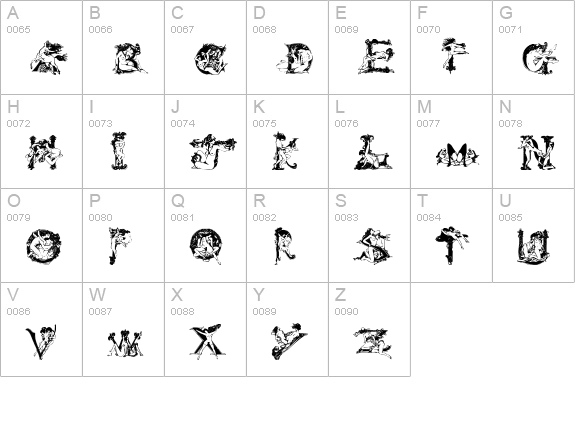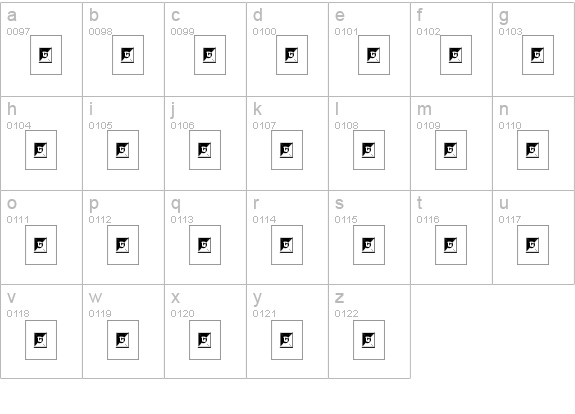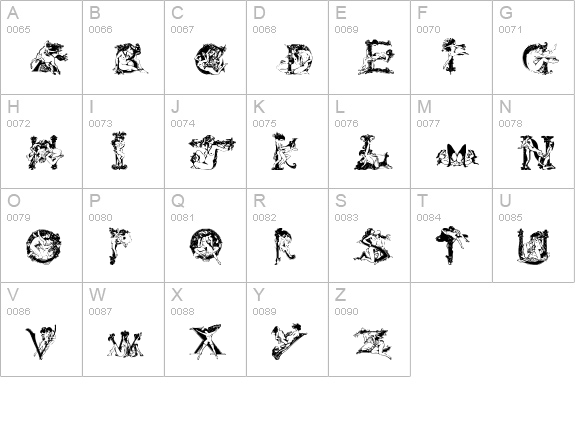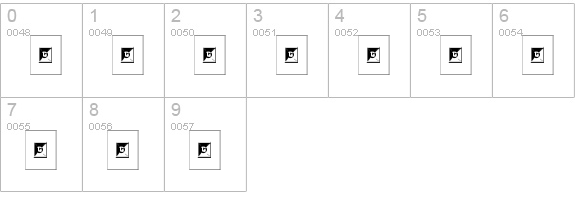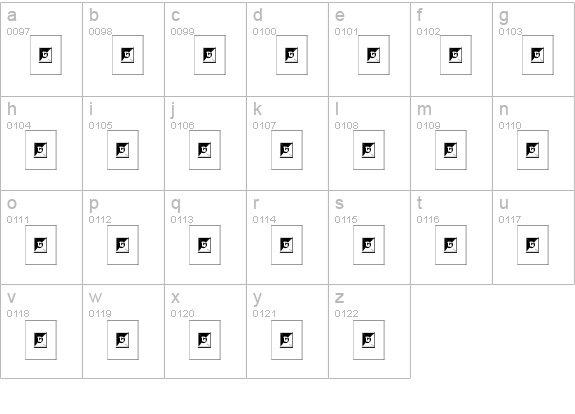
Vintage Erotique is a captivating and alluring font that embodies the essence of sensuality and seduction. With its elegant curves and sophisticated design, this font will transport you to an era of timeless beauty and forbidden desires. Each letter is meticulously crafted to evoke a sense of passion and intrigue, making it perfect for projects that require a touch of vintage allure. This font is not only visually stunning, but also versatile in its application. Whether used in a logo, a poster, or a headline, Vintage Erotique will add a touch of elegance and sophistication to any design. It effortlessly captures the essence of a bygone era, infusing your project with a sense of nostalgia and timeless charm. And the best part? Vintage Erotique is freely available to download at FontsMarket.com. This means that you can add a touch of vintage allure to your designs without breaking the bank. Simply visit FontsMarket.com and discover the beauty and allure of this captivating font. So, whether you're designing a romantic wedding invitation, a vintage-inspired advertisement, or a passionate poster, Vintage Erotique is the perfect font to add a touch of elegance and sensuality to your project. Download it for free at FontsMarket.com and let your creativity run wild.